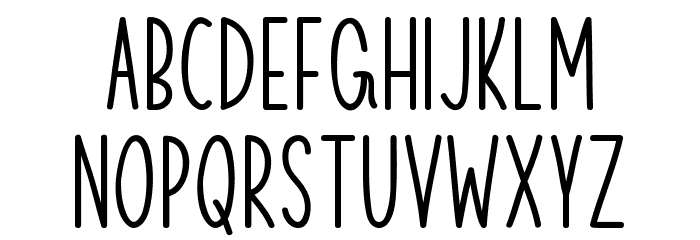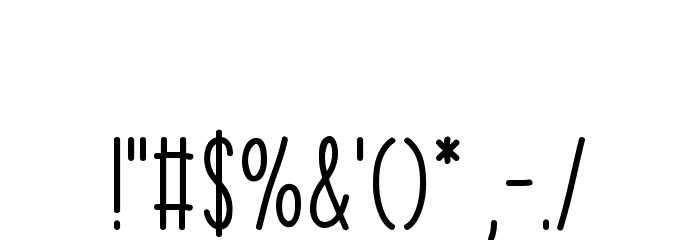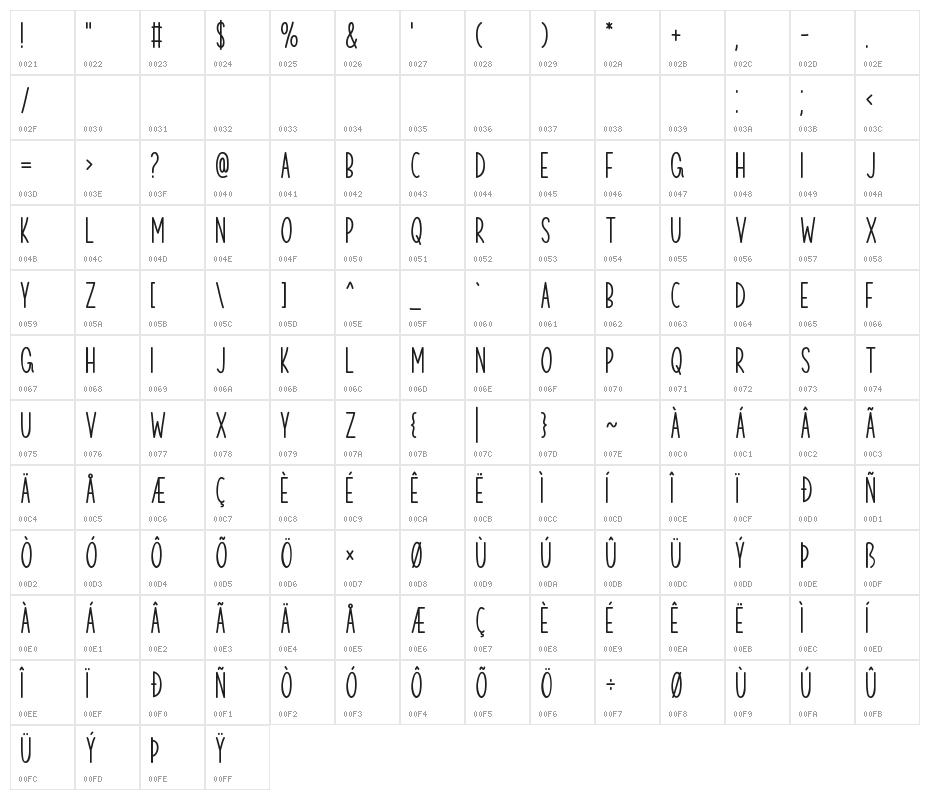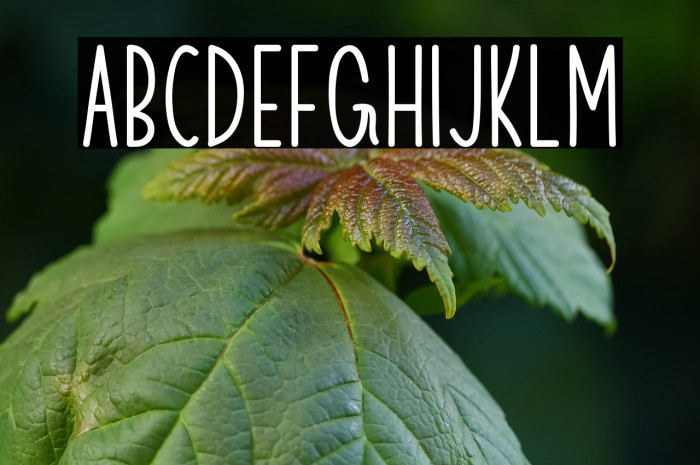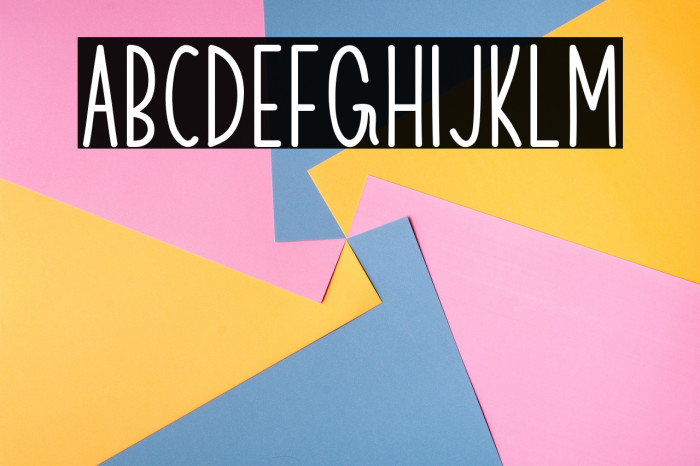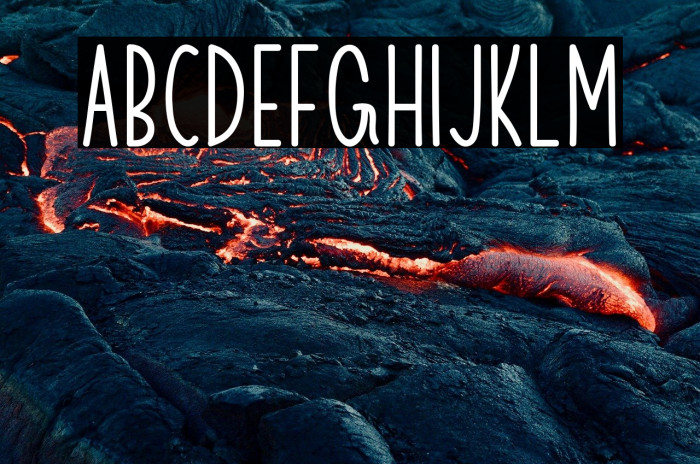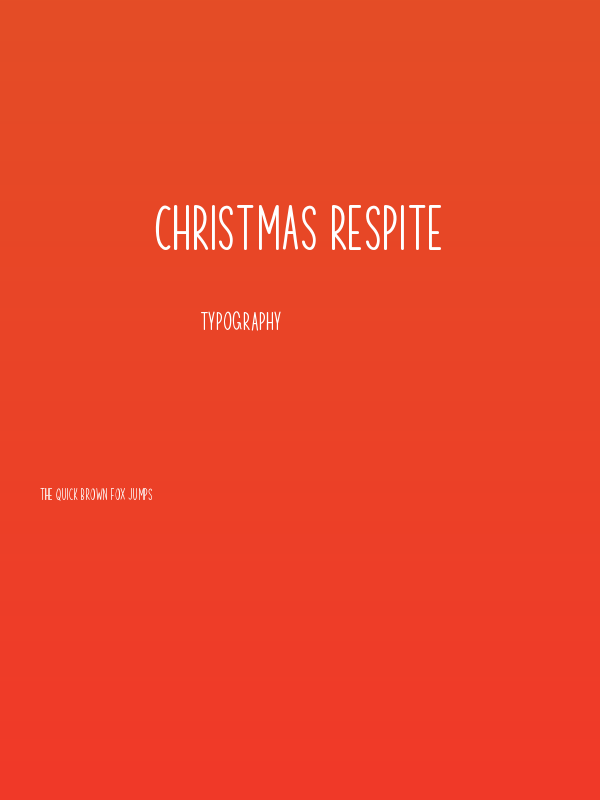
Christmas Respite Font
This font features a playful and whimsical style with tall, narrow letters that have a hand-drawn appearance. The characters are slightly irregular, adding a charming and informal touch. The uppercase and lowercase letters maintain a consistent height, creating a uniform look. The font includes a full set of uppercase and lowercase letters, numbers, and a variety of special characters. The strokes are consistent in width, providing a clean and modern feel. This font is ideal for projects that require a friendly and approachable aesthetic.
A playful, hand-drawn font with tall, narrow letters and a whimsical style.
- Font: Christmas Respite
- Proposed Projects: Ideal for greeting cards, children's books, playful branding, and festive designs.
- Category: Handwritten
- Overall Style: Playful
- Use Case: Headlines, Logos, Greeting Cards